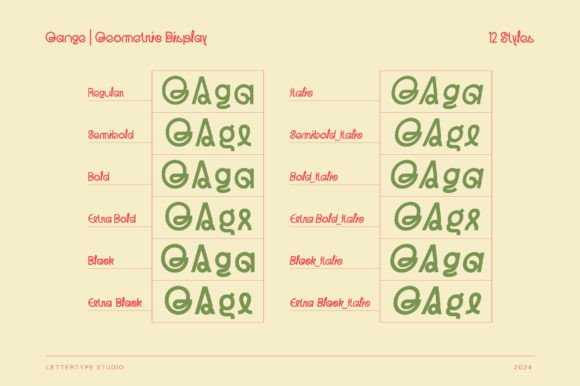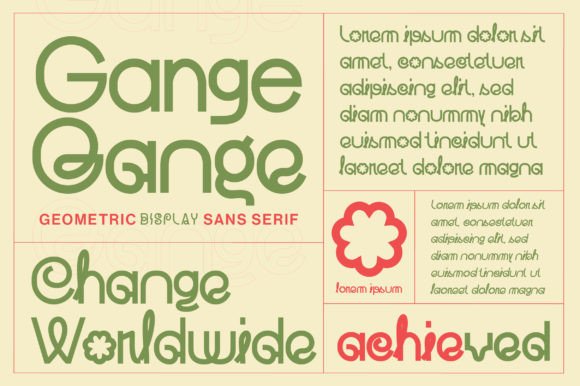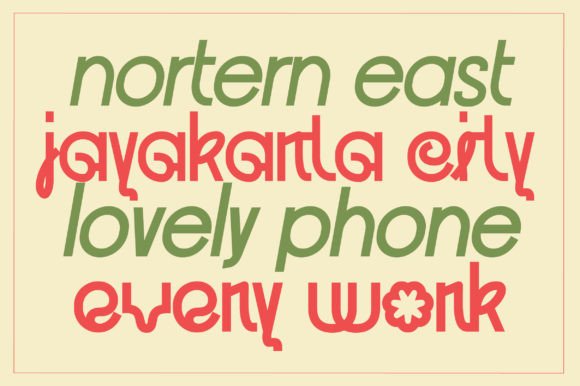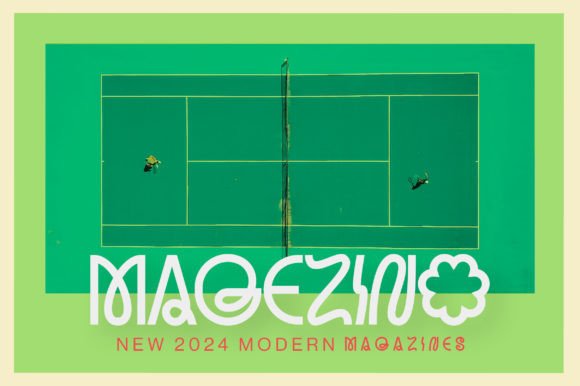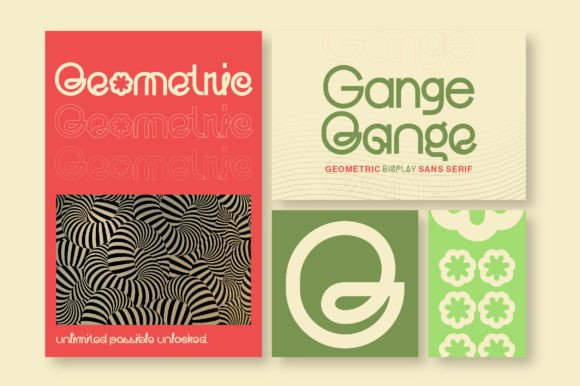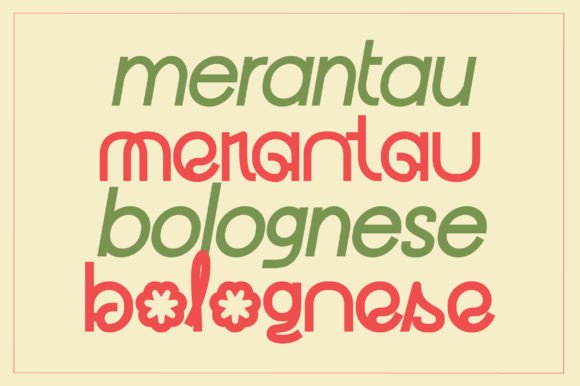
Unlock Your Creative Potential with the Gange Font
Have you ever stared at a blank page, your mind racing with ideas but struggling to bring them to life? That’s when the magic happens – when you stumble upon the perfect font to set your design ablaze. For designers seeking that elusive spark, we’re excited to introduce the Gange Font, a Geometric Display Sans Serif designed to unleash your creativity and take your projects to the next level.
With its vast array of customization options and over 57+ alternate glyphs, the Gange Font is the ultimate tool for designers who crave control and flexibility. Whether you’re working on photography, watermarks, social media posts, or logos, this font has got you covered. Its versatility and endless customization possibilities make it a valuable addition to any designer’s toolkit.
- Unique Characteristics: Gange Font features a unique blend of traditional and modern elements, resulting in a distinctive and eye-catching aesthetic.
Gange Font Review
Gange Font is a unique, sans-serif font that I’ve had the chance to work with, and I must say it’s been an interesting experience. Here are my thoughts:
- ✨ Customizability: Gange Font offers a wide range of customization options, from font sizes to colors, making it easy to tailor to your design needs.
- ✨ Versatility: This font can be used for a variety of projects, from logos to web design, and it looks great in both digital and print formats.
- ✨ Modern feel: Gange Font has a clean, modern aesthetic that’s perfect for contemporary designs.
- ⚠️ Limited legibility: At smaller font sizes, the letters can become difficult to read, which may not be ideal for body text.
- ⚠️ Limited character set: The font only includes a limited character set, which may not be suitable for projects that require a wide range of languages or special characters.
Gange Font is a solid choice for designers who want a modern, customizable font. While it may have some limitations, its strengths make it a great option for a variety of projects. With some careful consideration and planning, you can get the most out of this font and create stunning designs.
To get the most out of Gange Font, use it for creative and artistic projects, such as logo design, typography-based art, and advertising materials. Experiment with different font sizes, colors, and styles to create visually appealing designs.
Gange Font is commonly used in creative fields such as graphic design, advertising, and digital art. It’s also used in branding and identity design, such as logos and business cards.
Compared to Gange Font, Playfair Display has a more formal and traditional feel, while Gange Font has a more modern and edgy aesthetic. Playfair Display is suitable for projects that require a touch of elegance and sophistication, whereas Gange Font is better suited for projects that need a bold and contemporary look.